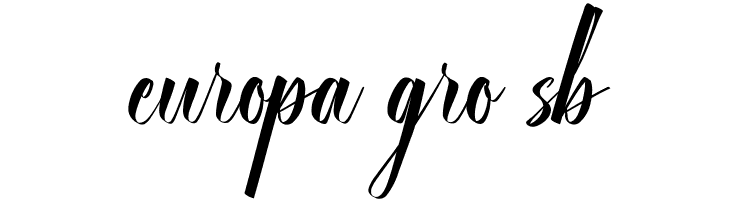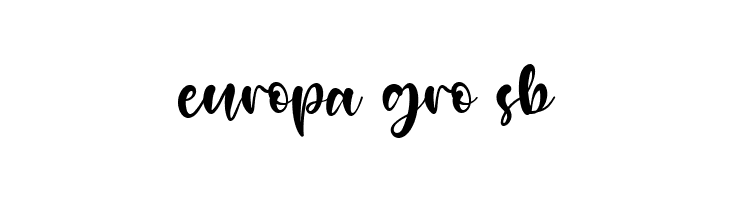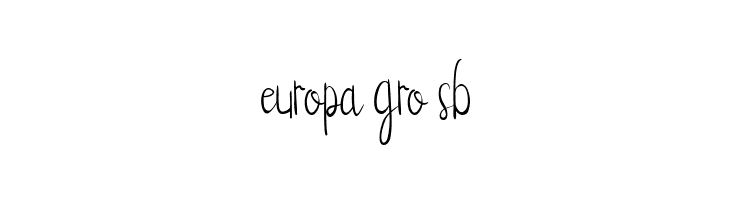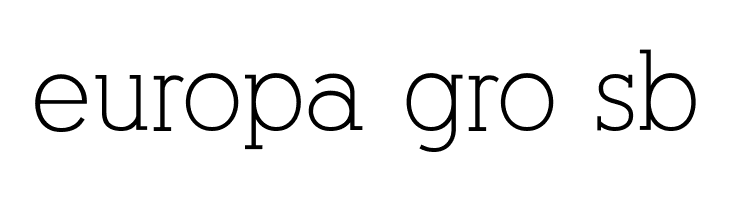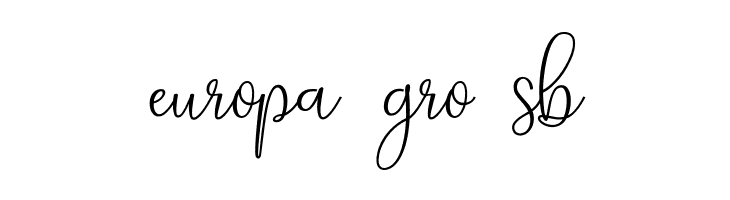
A futuristic, hollow, and geometric font with a consistent stroke width.
A bold, futuristic font with geometric shapes and sharp angles.
A graceful and elegant script font with fluid, cursive strokes.
A bold, decorative font with intricate patterns and elegant script elements.
A playful, handwritten font with irregular strokes and a whimsical style.
A bold and expressive script font with flowing, interconnected letters.
An elegant cursive script font with fluid, connected letters and graceful curves.
A graceful and flowing script font with a handwritten style.
An elegant script font with sweeping curves and high contrast, perfect for sophisticated designs.